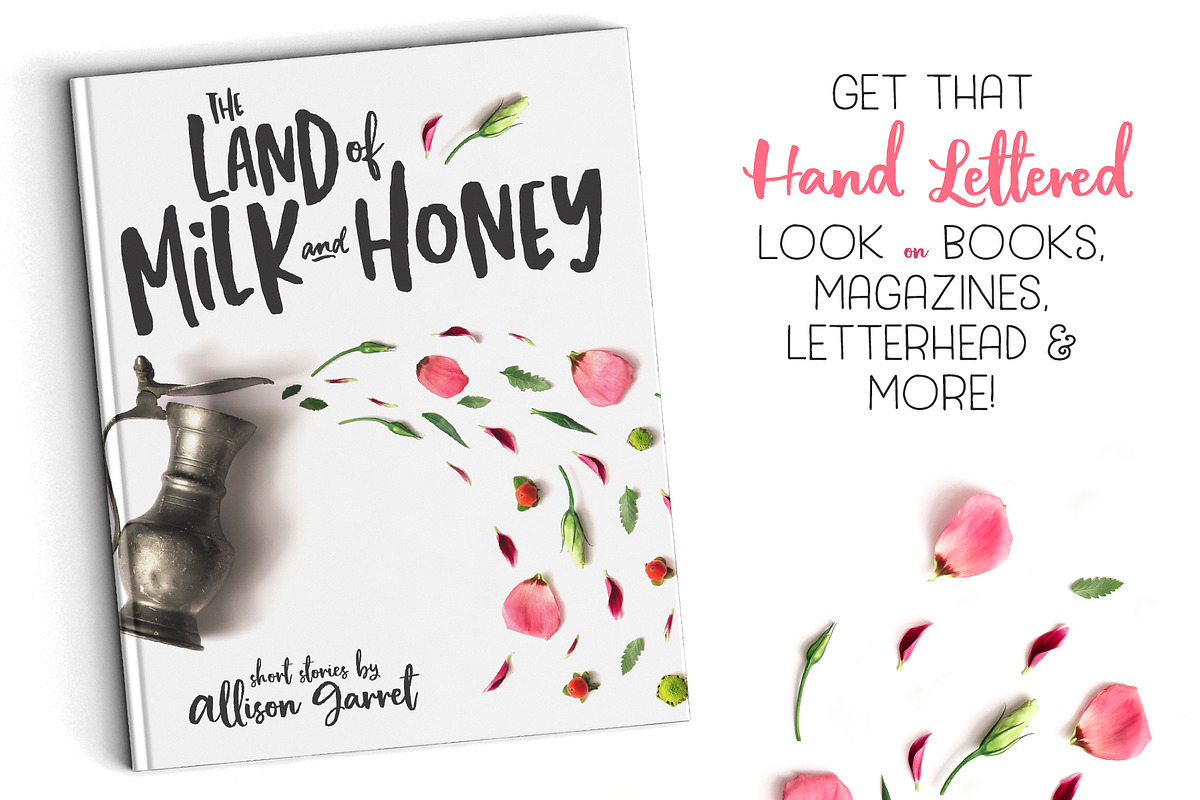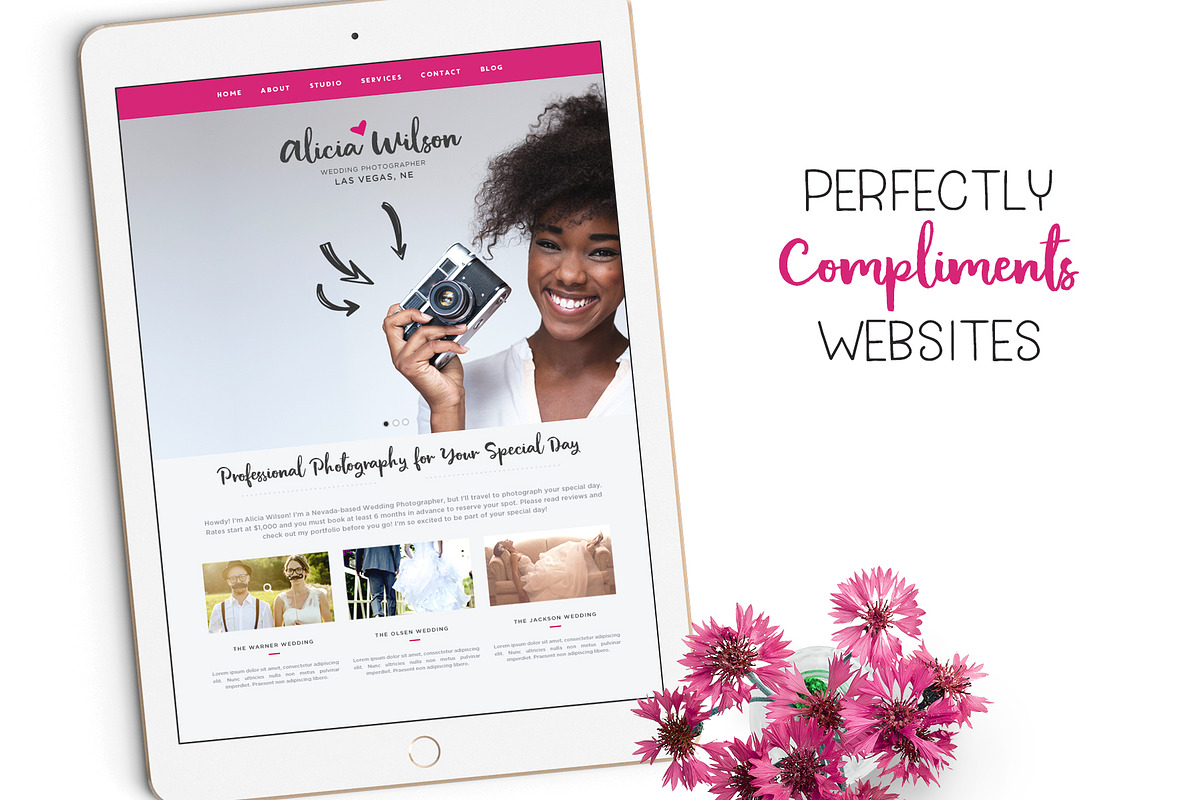
The TypeSet Trio + Illustrations
Introducing the TypeSet Trio! Feast your eyes on three, wildly versatile hand-drawn fonts - designed to give your work that coveted hand-lettered look. They work beautifully in a set, but I encourage you to use them independently too! (See previews for ideas). Use them to create everything from logos, to decorative packaging, to greeting cards and more! :)